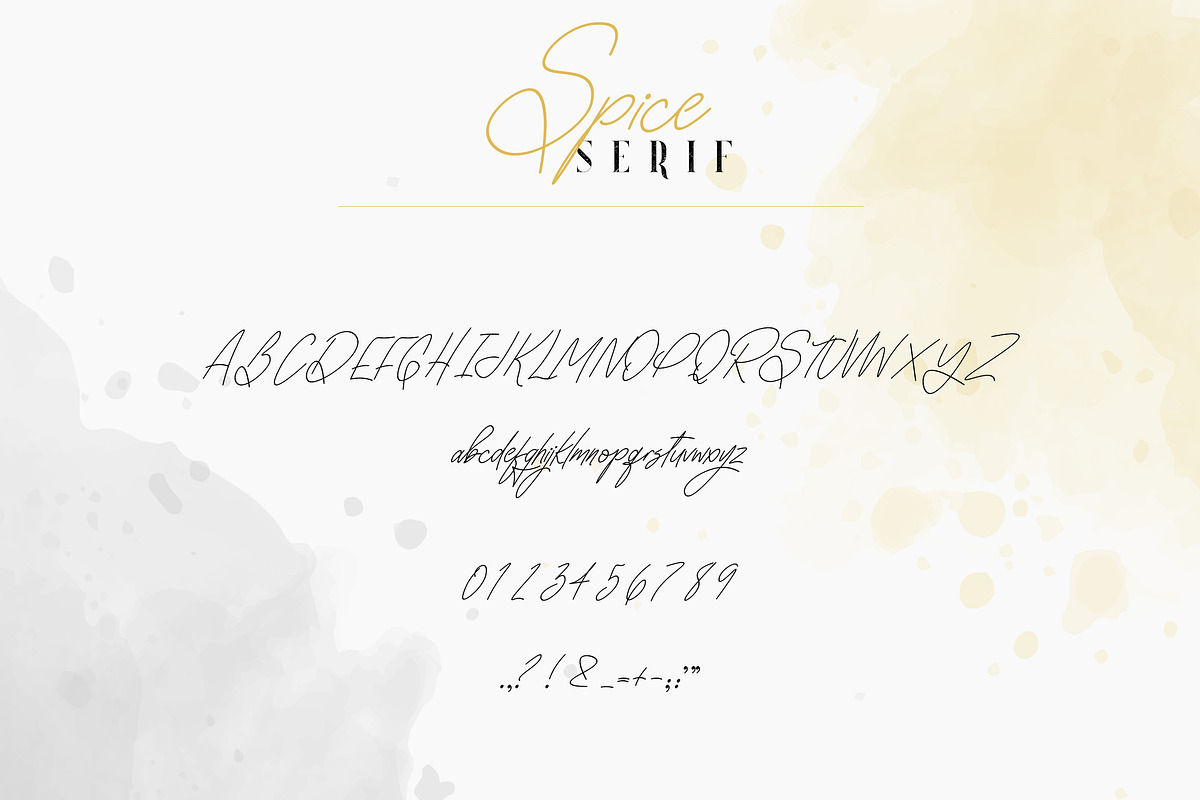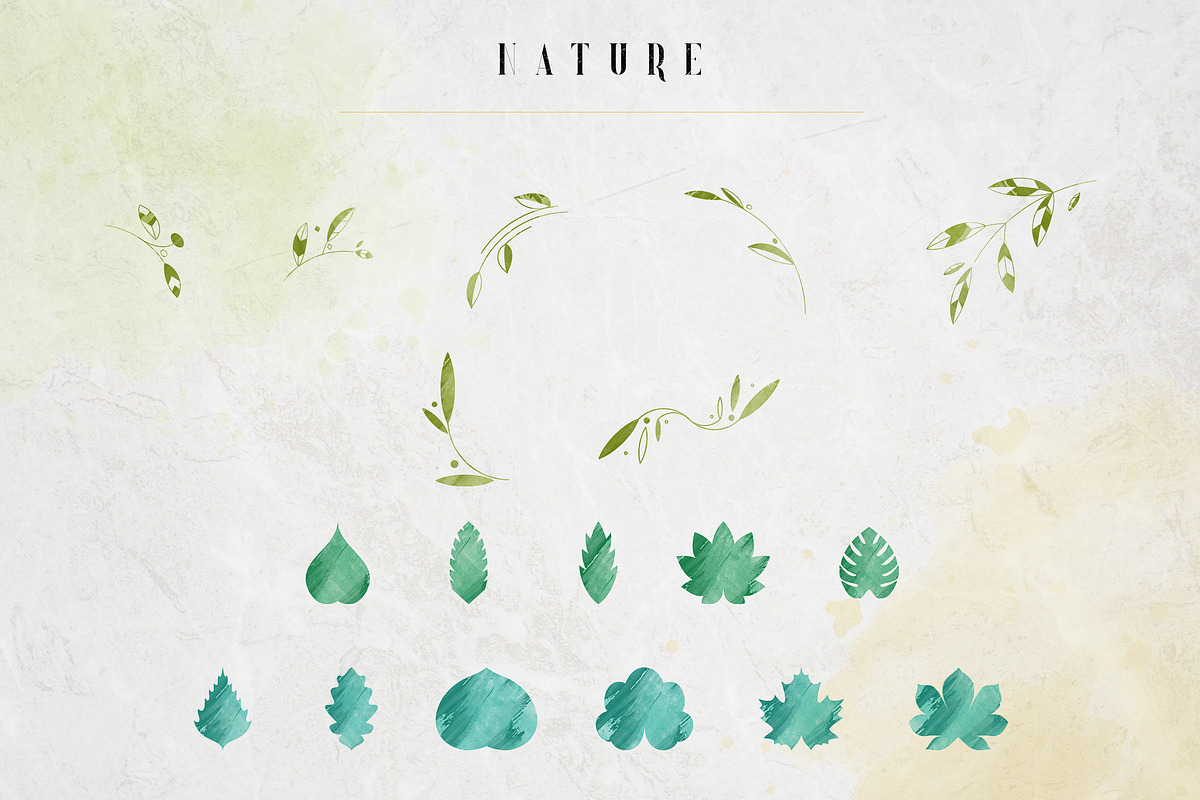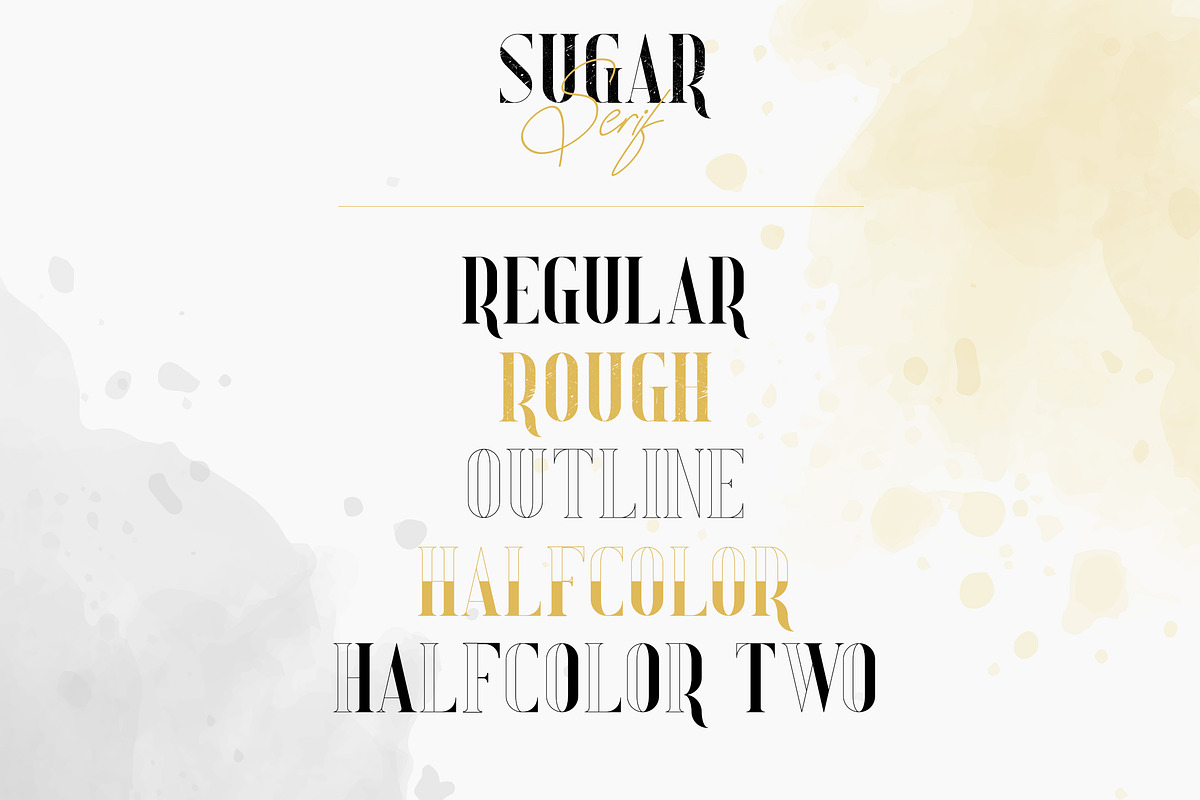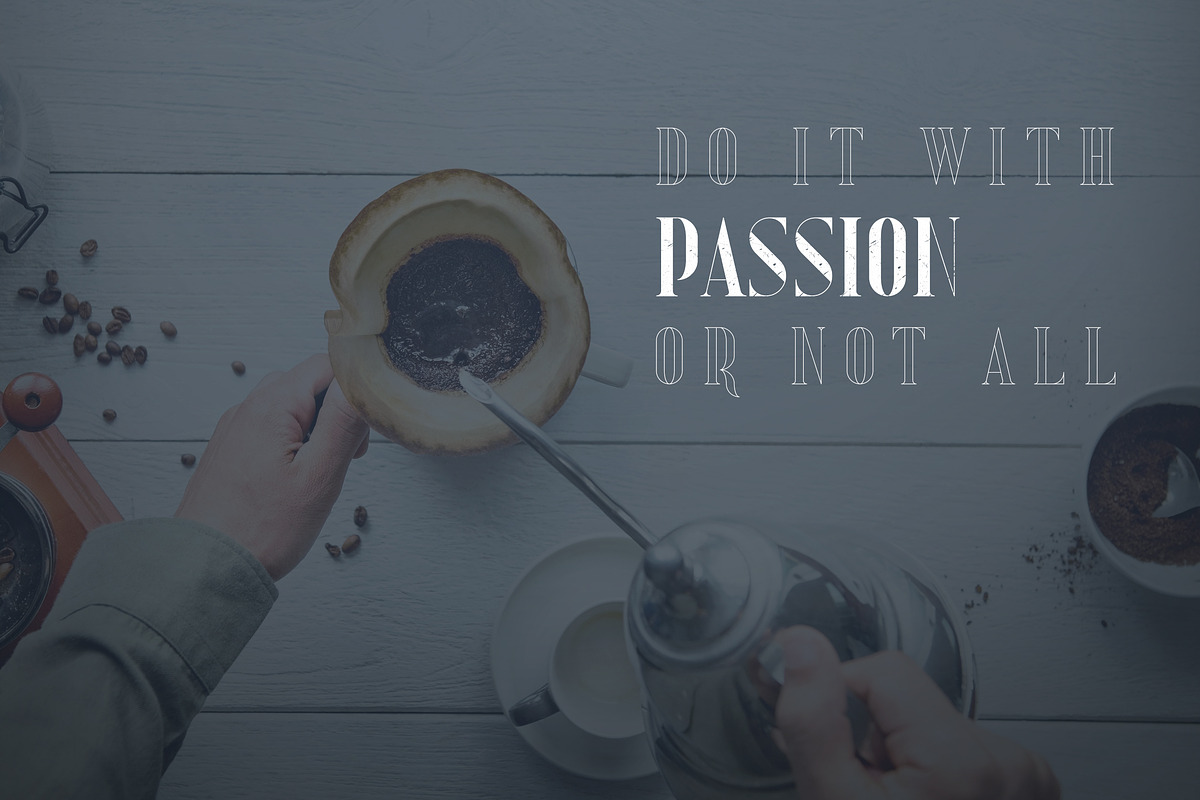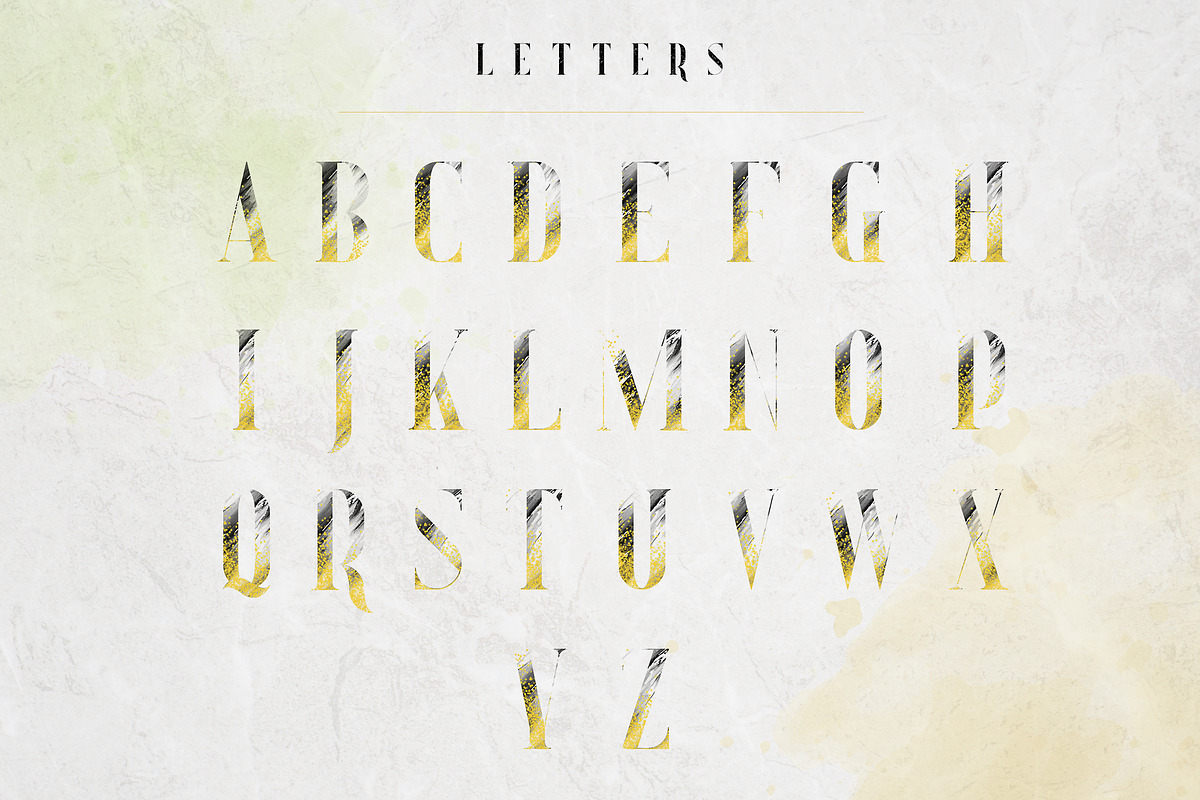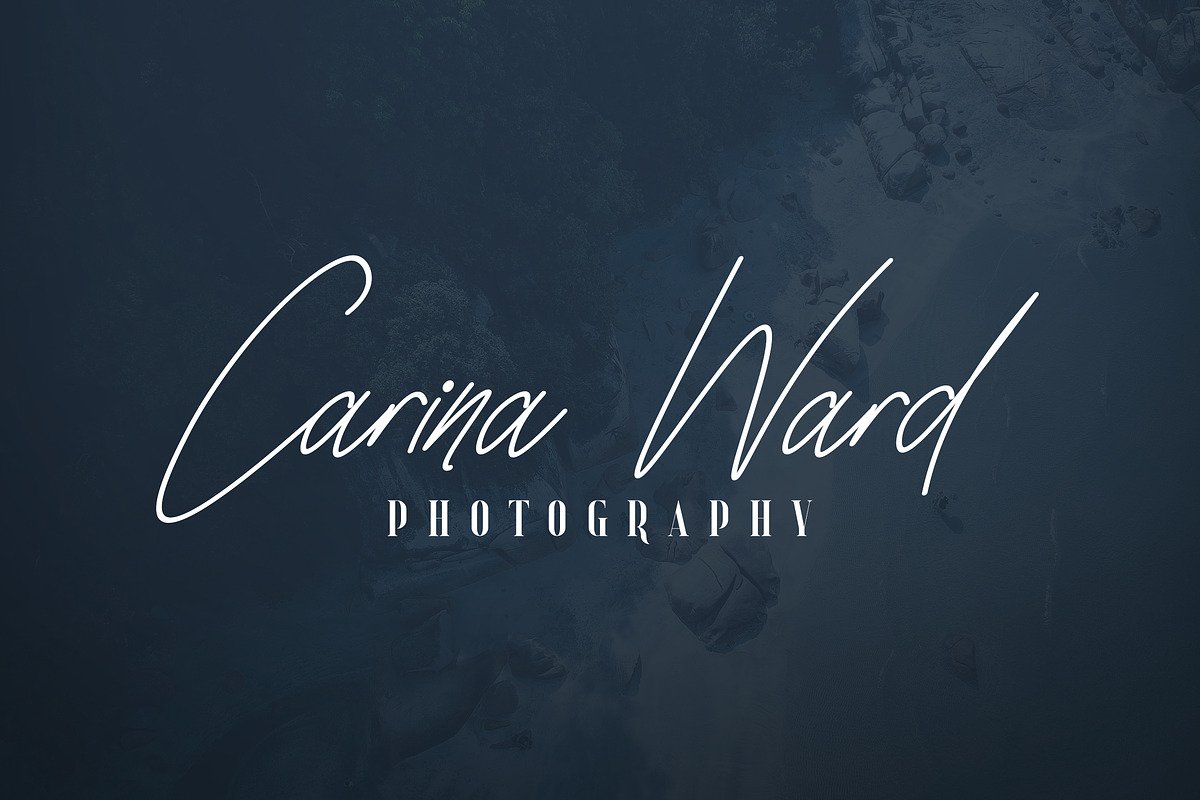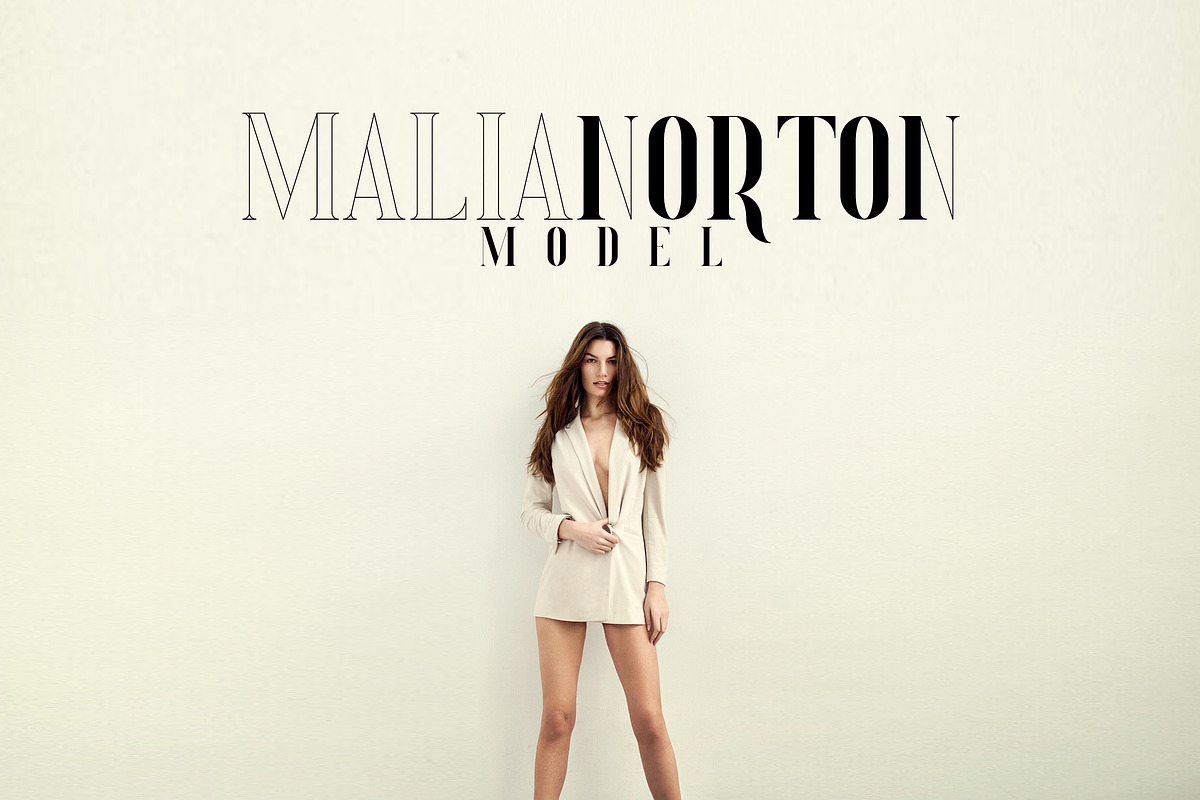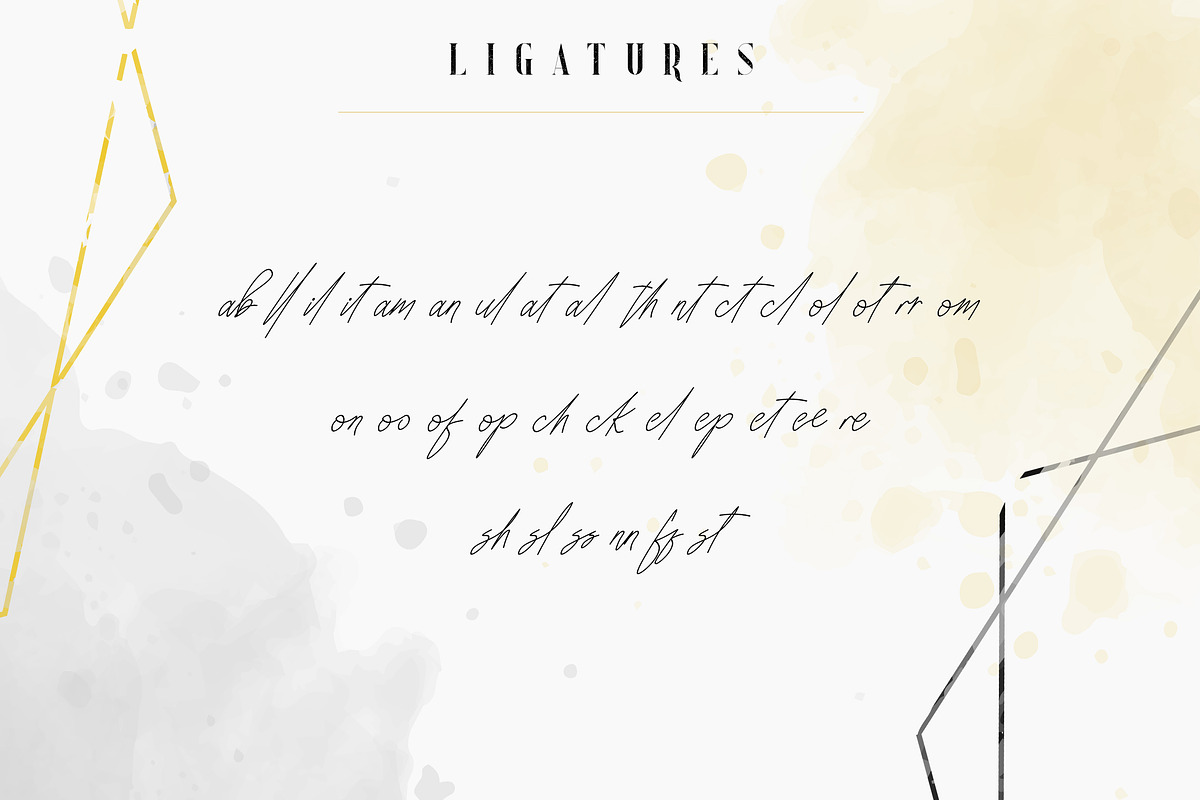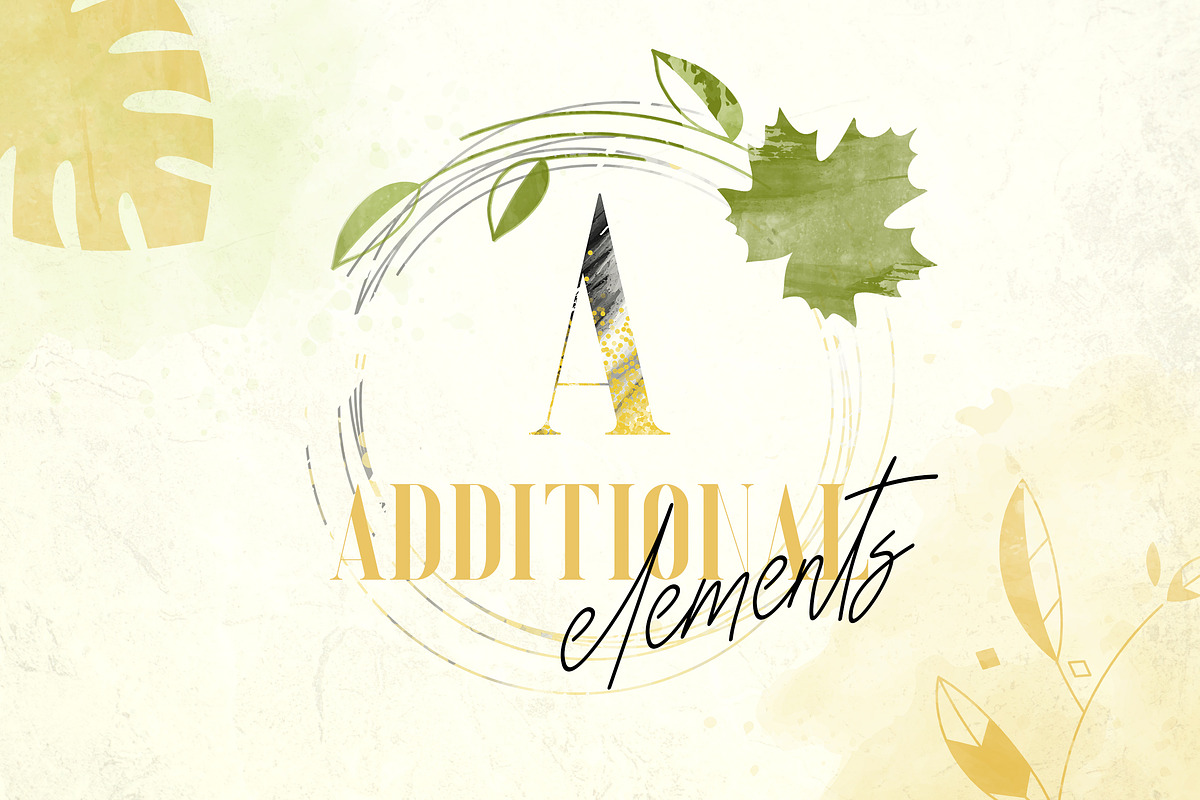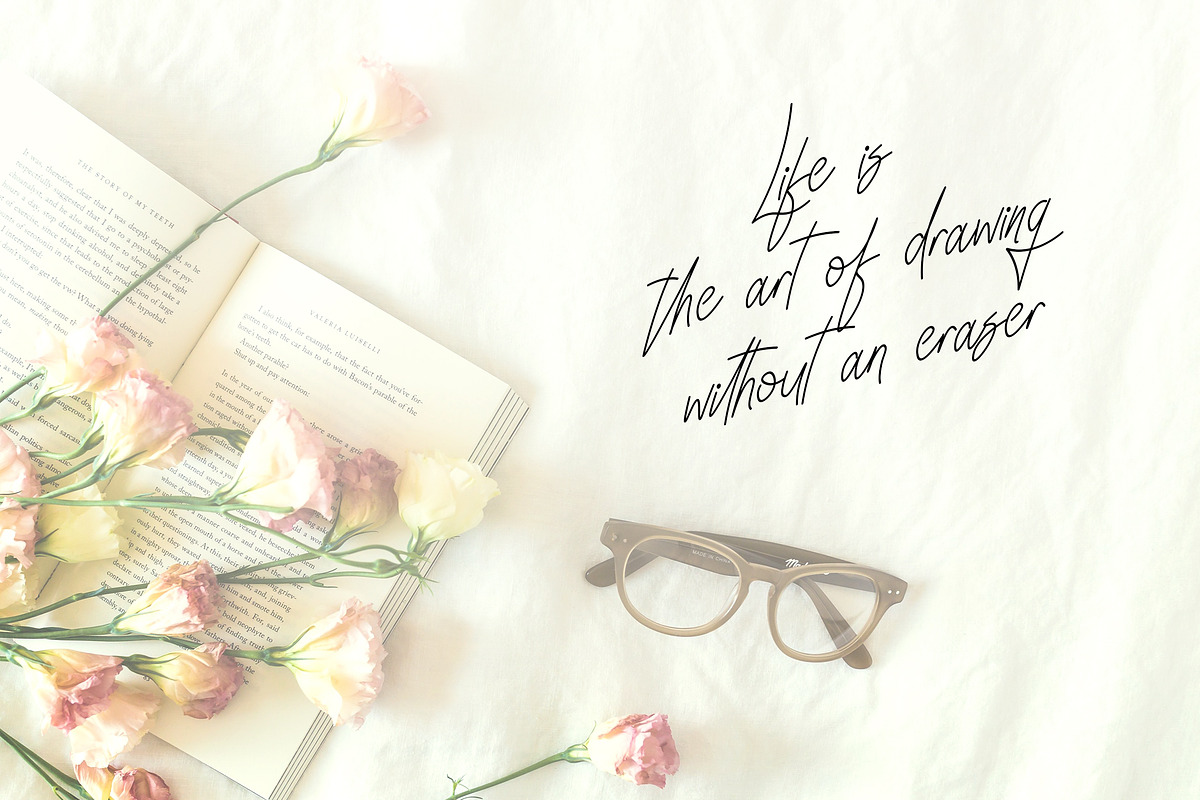
Sugar Spice - font duo + Extras
INTRODUCING Font duo Sugar Spice and a lot of things nice
Sugar Spice is elegant, clean font duo with total of 6 font styles, 56 graphic elements and multilingual support. It's a very versatile font that works great in large and small sizes.
Sugar Spice is perfect for branding projects, home-ware designs, product packaging, magazine headers - or simply as a stylish text overlay to any background image.
In Sugar Spice and a lot of things nice You will find :
Sugar serif family
- Sugar Regular
- Sugar Rough
- Sugar Outline
- Sugar Halfcolor
- Sugar Halfcolor two
Spice script
- Spice script
Spice font contains following ligatures:
ab ll il it am an ul at al th nt ct cl ol ot rr om on oo of op ch ck el ep et ee re sh sl ss nn ff st